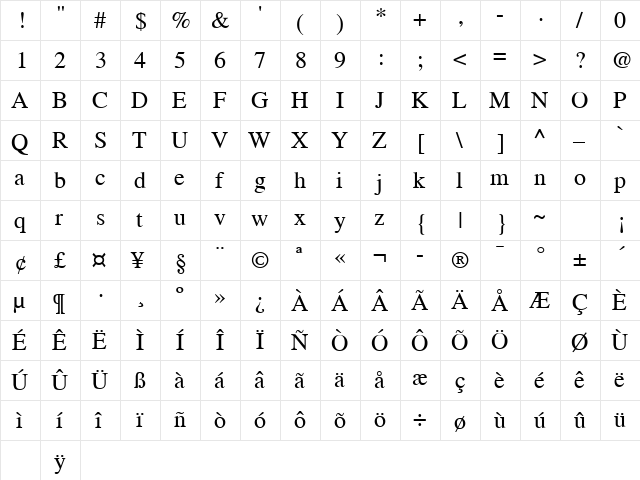
Walkin' The Dog 5 Regular Lite
Design Context for Walkin' The Dog 5 Typeface
Walkin' The Dog 5 offers clean, dependable letterforms without strong stylistic allegiance, making it a practical choice for designers who need flexibility.